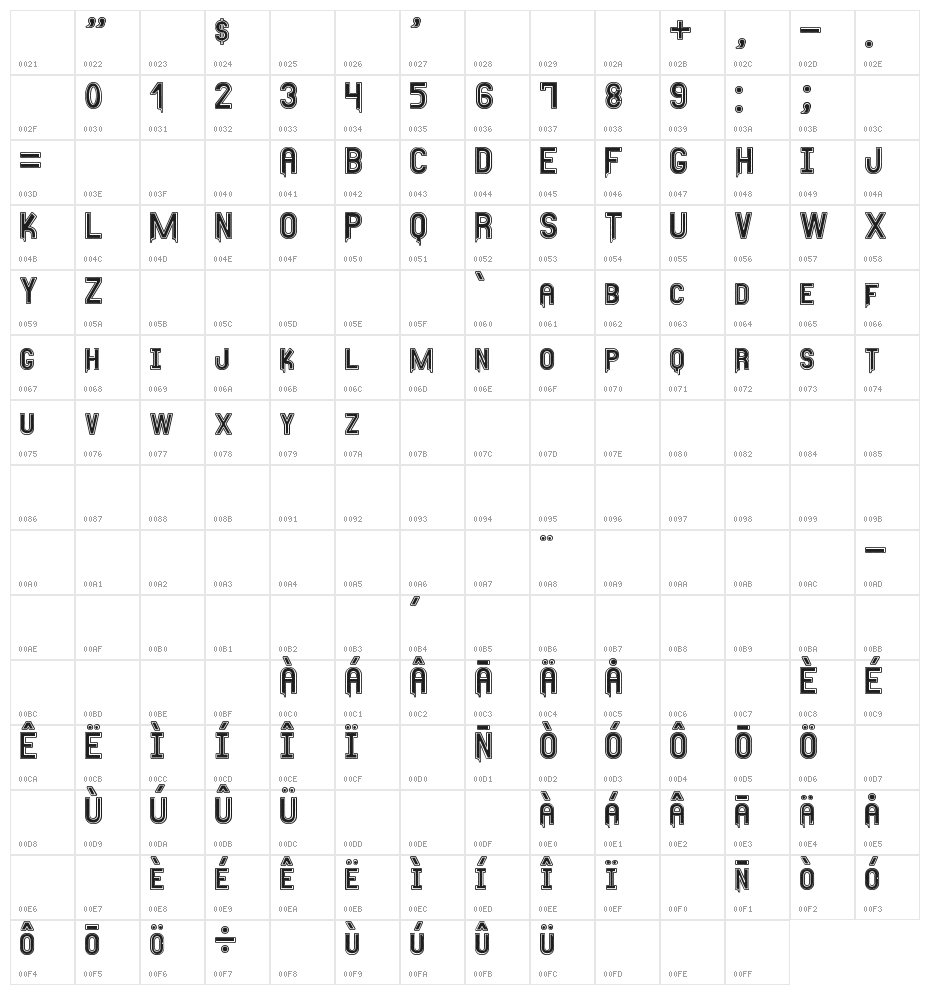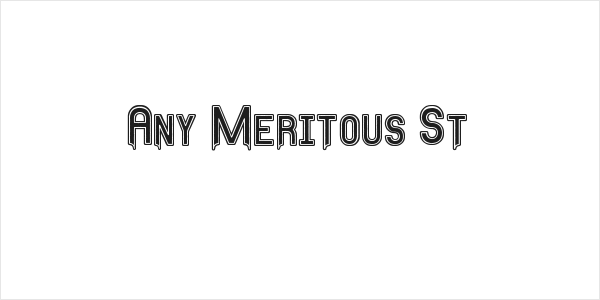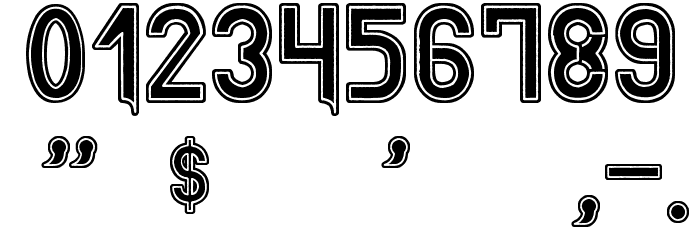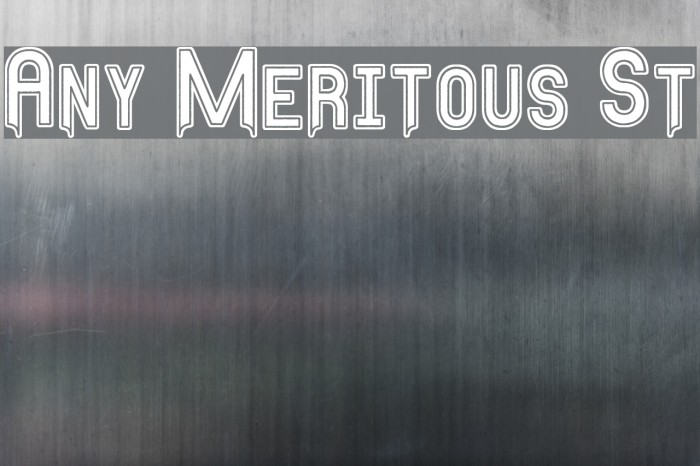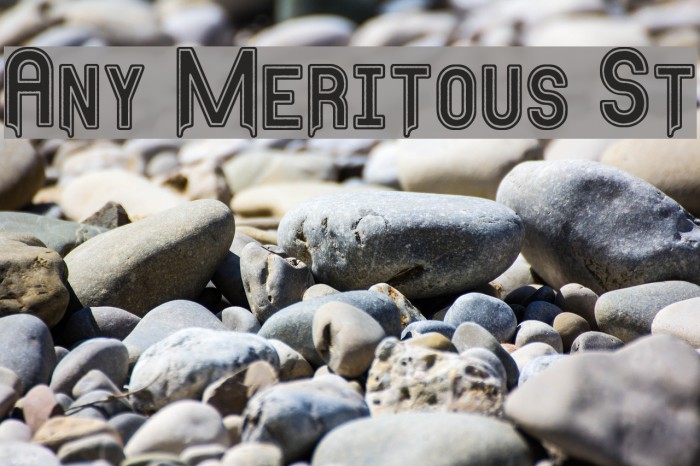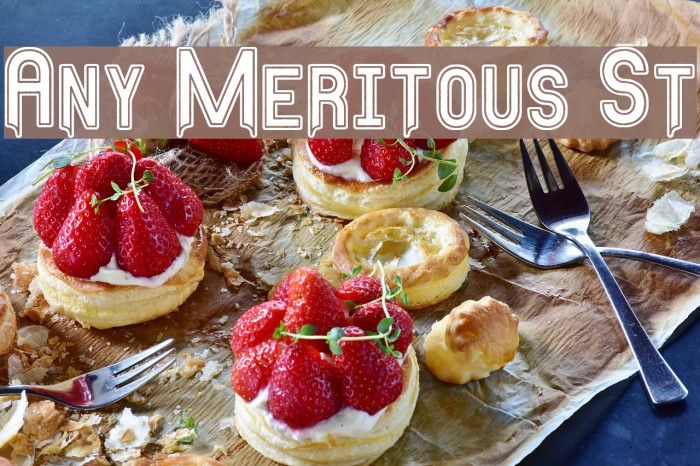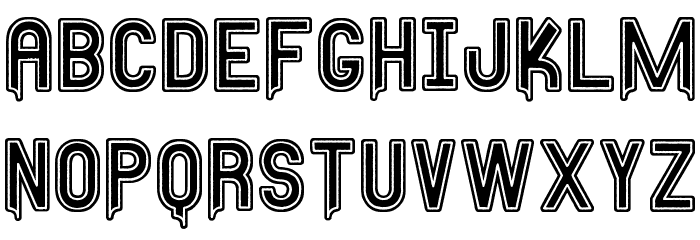
Any Meritous St Font
Any Meritous St Description
This font features a bold, outlined style with a distinct drop shadow effect, giving it a three-dimensional appearance. The uppercase letters are uniform in height, maintaining a consistent width that enhances readability. The numbers and special characters follow the same design principles, ensuring a cohesive look across all glyphs. The font's unique style makes it stand out, with its bold lines and shadow creating a sense of depth and movement. This design is particularly effective for capturing attention and conveying a modern, dynamic feel. The spacing between characters is normal, allowing for clear legibility while maintaining the font's striking visual impact.